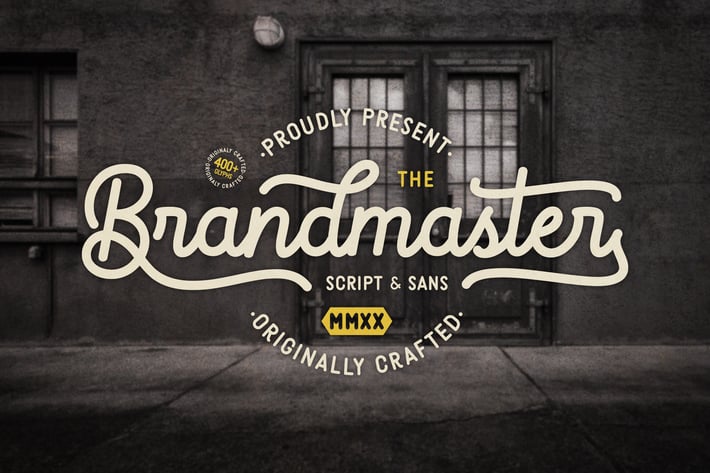
Brandmaster - Retro Font Duo
Brandmaster is a modern script font, has a sleek design with a handwritten feel, you can combine this font with texture, to make it look classic and old-fashioned.
This font will make your designs vintage-looks, exclusive and authentic.
This font has a huge variety, has 7 alternate character sets, and an underline set.
It offers support for all English characters, multiple opentype features (stylistic alternates, ligature and swash),
some characters in multiple languages and standard punctuation marks are included.